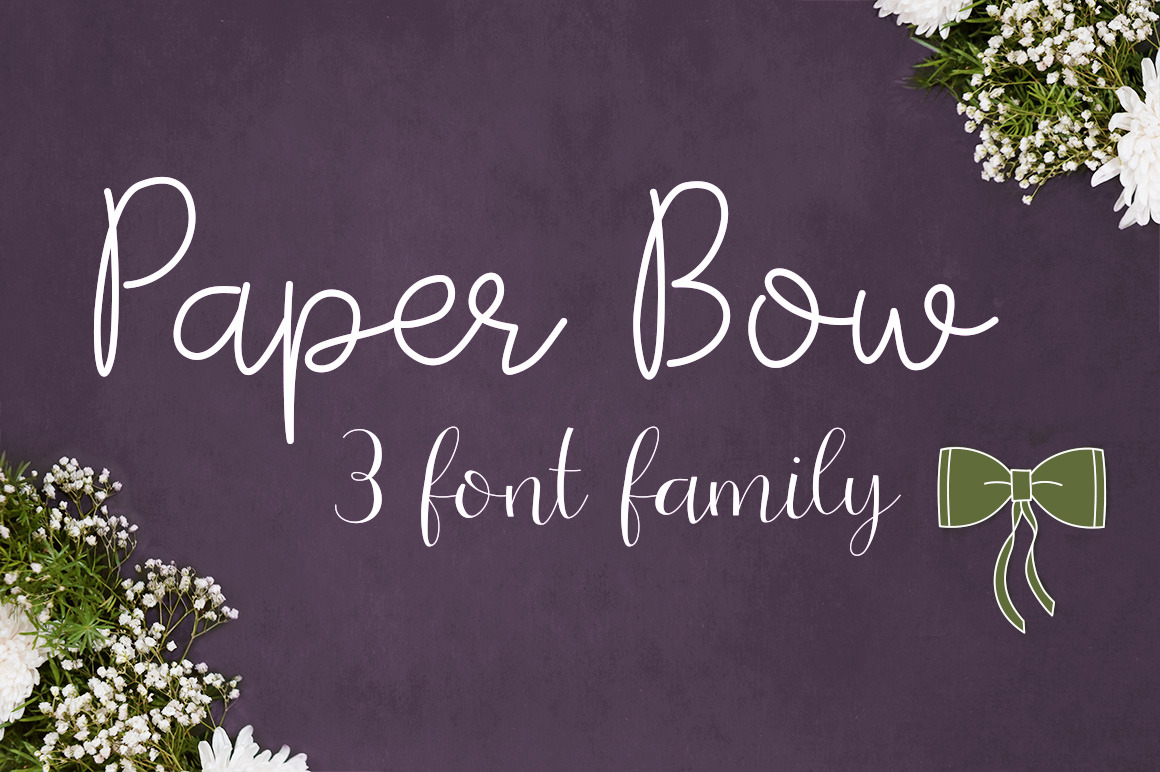
Paper Bow is a lovely handcrafted script font coming in 3 different styles. It's nice for headlines but also to give your text a handwritten look.
The font includes some cute symbols. To add them to your text just set the font to Paper Bow and then copy and paste the following symbols (try it below):
{}►◄▲▼↑↓→←♥